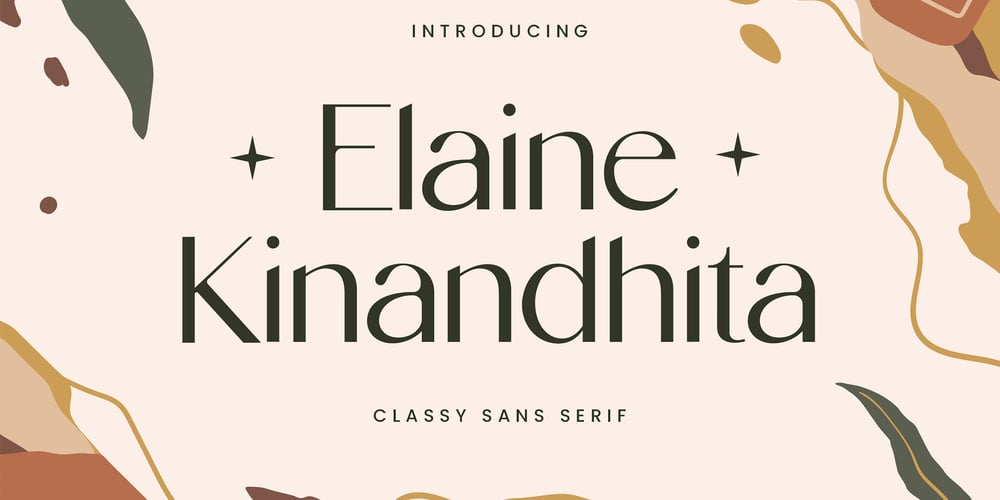
Elaine Kinandhita Font Family was designed by Hero and published by UICreative. Elaine Kinandhita contains 1 styles and family package options. Introducing our new product the name Elaine Kinandhita Classy Sans Serif Font. Modern Sans Serif font that feels beautiful classy, elegant, and modern. This font is perfectly suited for a wide variety of projects, such as signature, stationery, logo, wedding, typography quotes, magazine or book covers, website headers, clothing, branding, packaging design, and more. Also for fashion-related branding or editorial design and displays both masculine and feminine qualities.